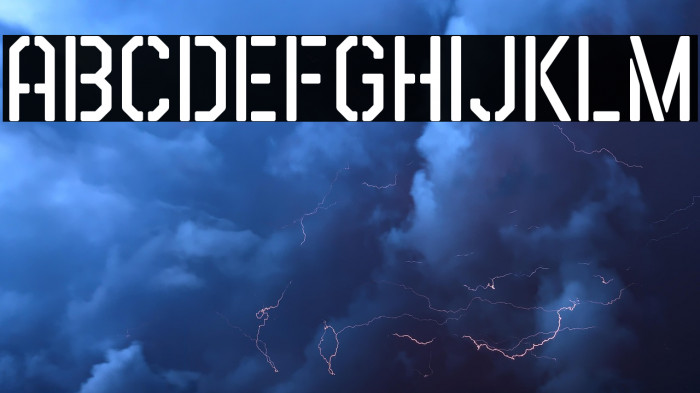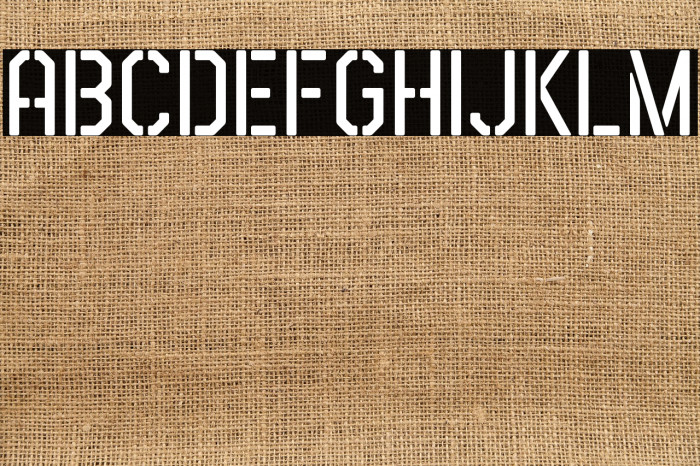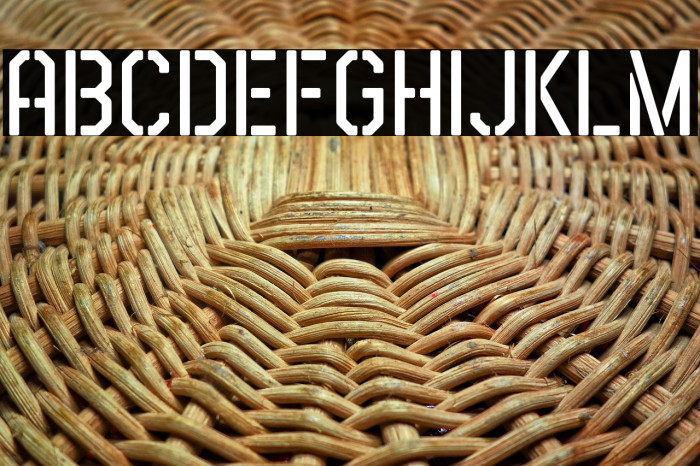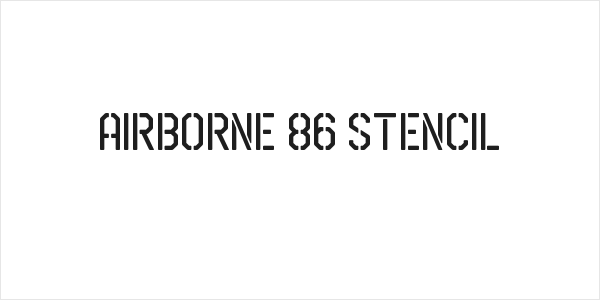
Airborne 86 Stencil Font
Airborne 86 Stencil Description
This font features a bold, stencil-like design with geometric and angular shapes, creating a strong and impactful appearance. The characters are constructed with consistent gaps, typical of stencil fonts, which add to its industrial and utilitarian feel. The uppercase letters are uniform in height, while the numerals maintain a similar style, ensuring coherence across the typeface. The special characters are designed to match the bold and structured aesthetic, making it suitable for attention-grabbing designs.
| Overall Style | Industrial, Modern |
| Proposed Projects | Ideal for military-themed designs, posters, signage, and branding that requires a strong, industrial look. |